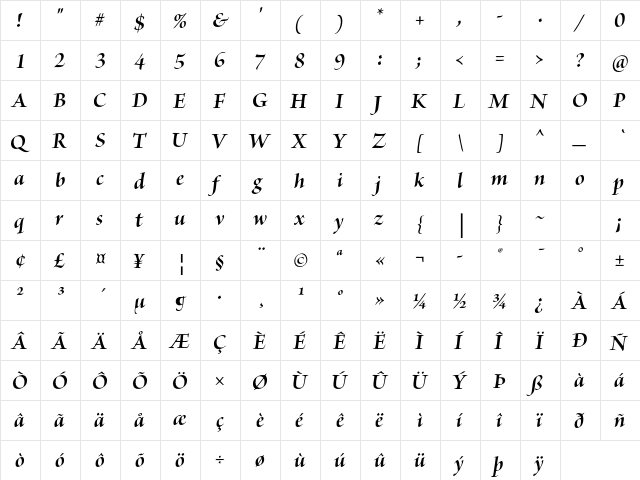
Brioso Pro Bold Italic Display Font Preview
| Designer | Robert Slimbach |
Design Context for Brioso Pro Typeface
Brioso Pro brings ornamental detail and strong personality to headlines and identities, where visual impact matters more than quiet functionality. Its italic angle brings a sense of urgency and motion to the letterforms. The heavy weight commands attention and anchors typographic hierarchies.
Font Pairing: Pair with a clean neutral sans-serif for body copy to let Brioso Pro's character lead without overwhelming the composition.
Pro Tip: Use Brioso Pro exclusively at display sizes — it was designed to be seen, not read at length. Let a neutral companion handle body copy.